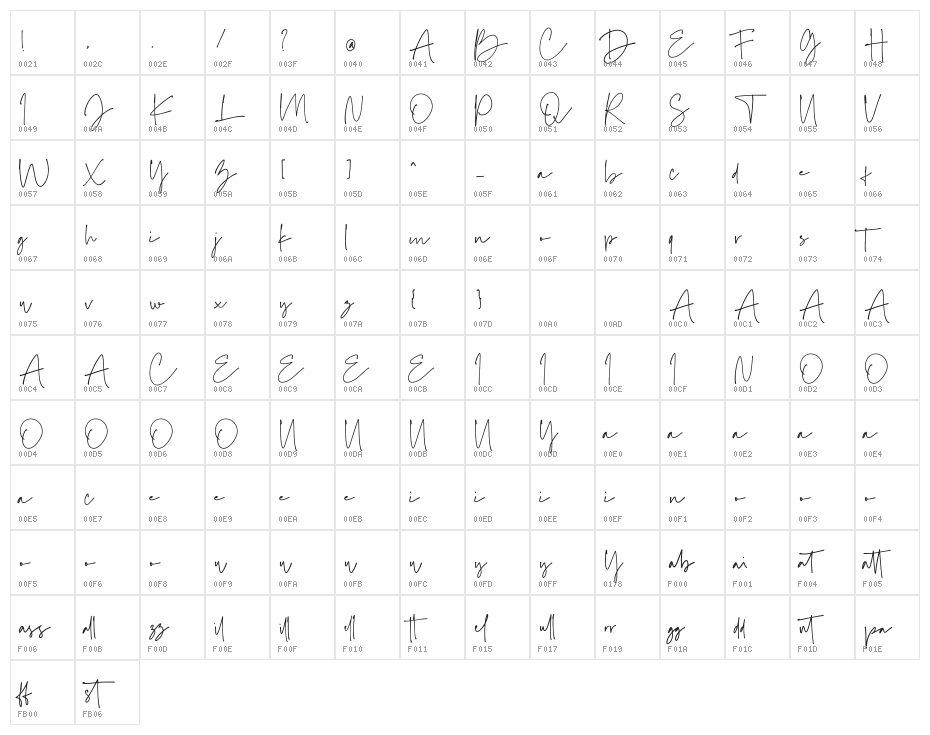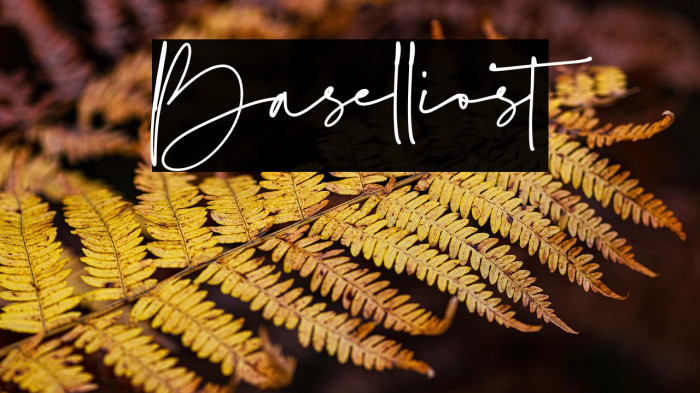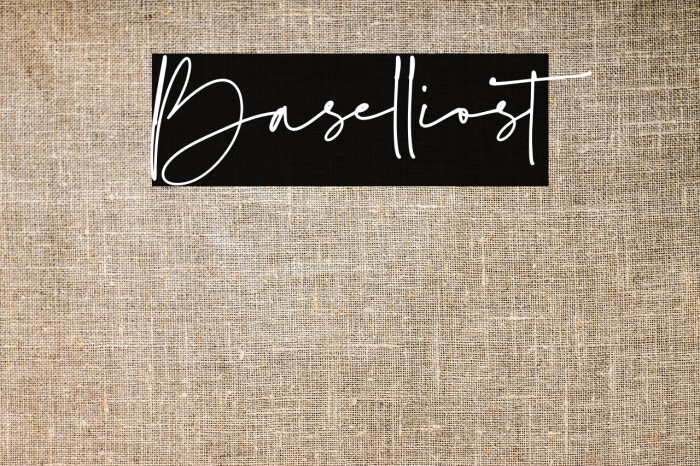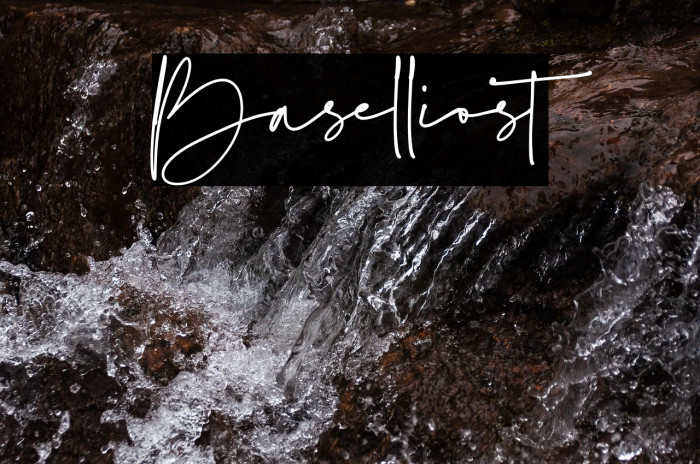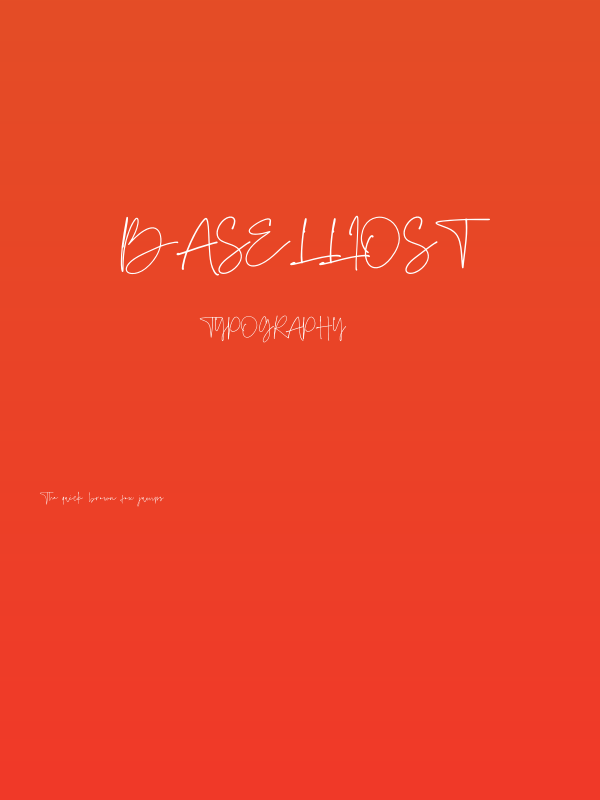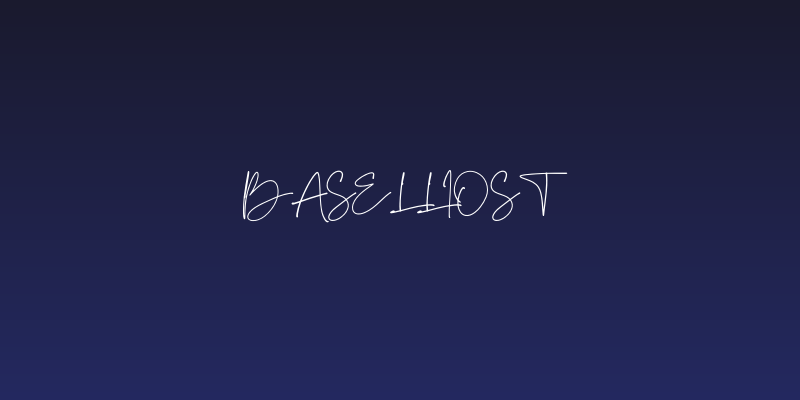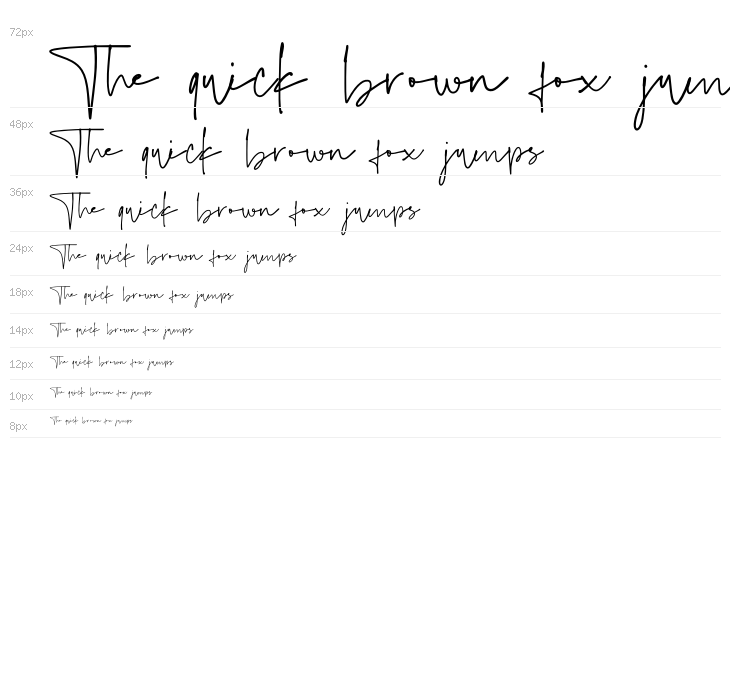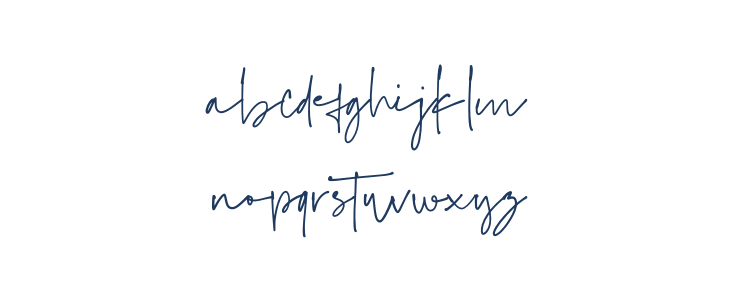
Baselliost Font
Baselliost Description
This font features a modern, handwritten style with a casual and flowing appearance. The uppercase letters are tall and slender, with a slight slant that adds a dynamic feel. The lowercase letters maintain a consistent style, with smooth curves and loops that enhance its handwritten charm. The overall design is elegant yet relaxed, making it suitable for projects that require a personal touch. The font's thin strokes and lack of serifs contribute to its contemporary aesthetic, while the spacing between characters is relatively tight, ensuring a cohesive look.
| Use Case | Logos, Headlines, Invitations |
| Proposed Projects | Ideal for wedding invitations, personal branding, social media graphics, and greeting cards. |